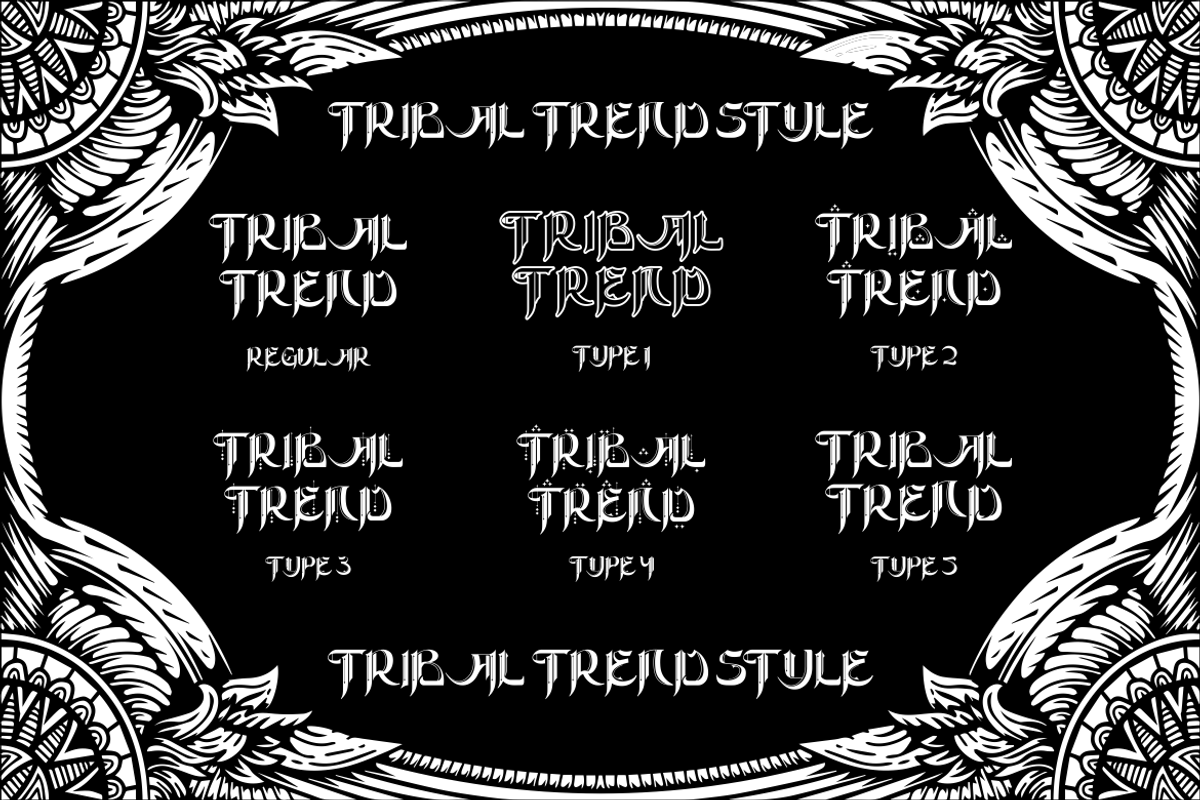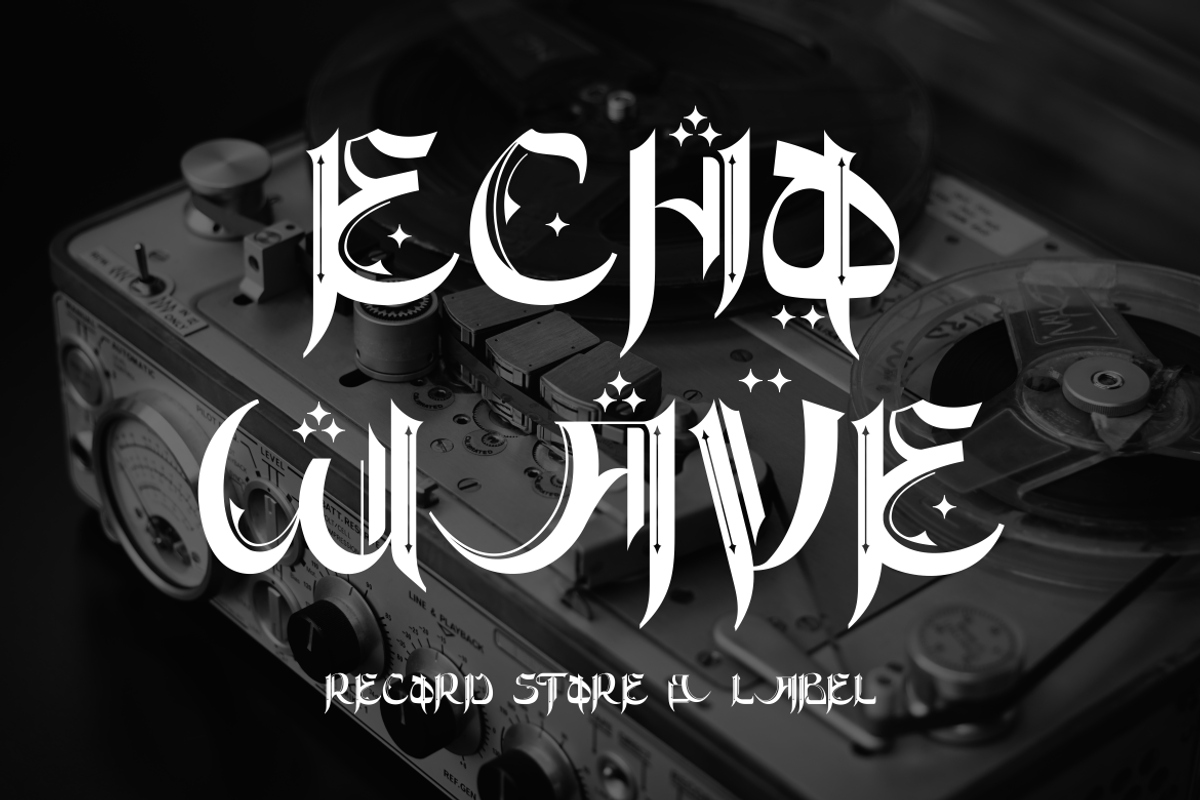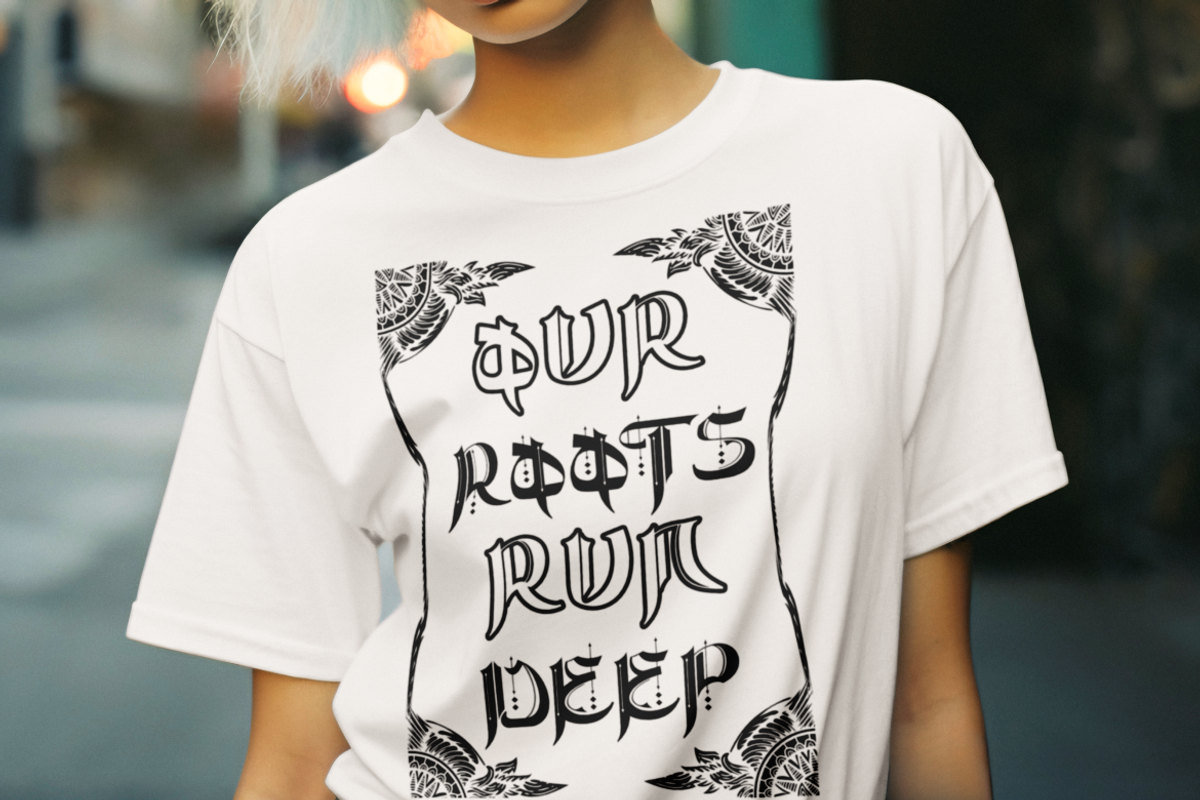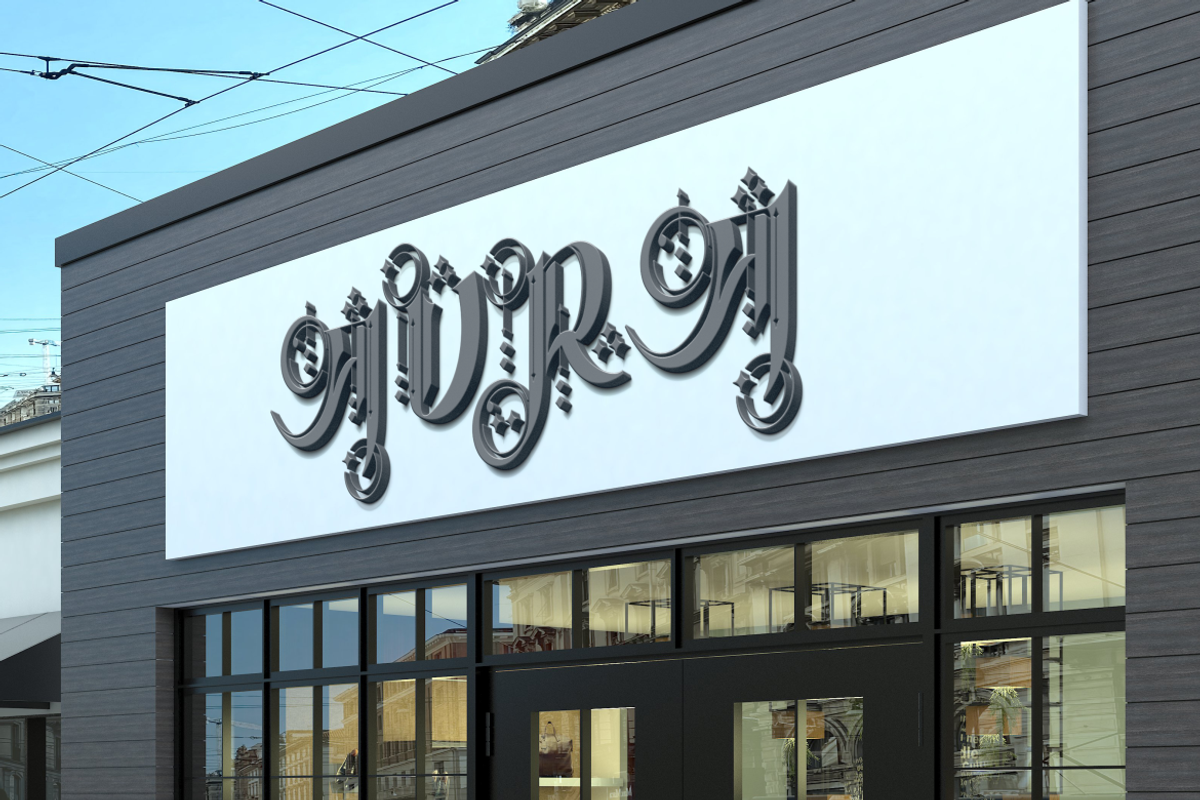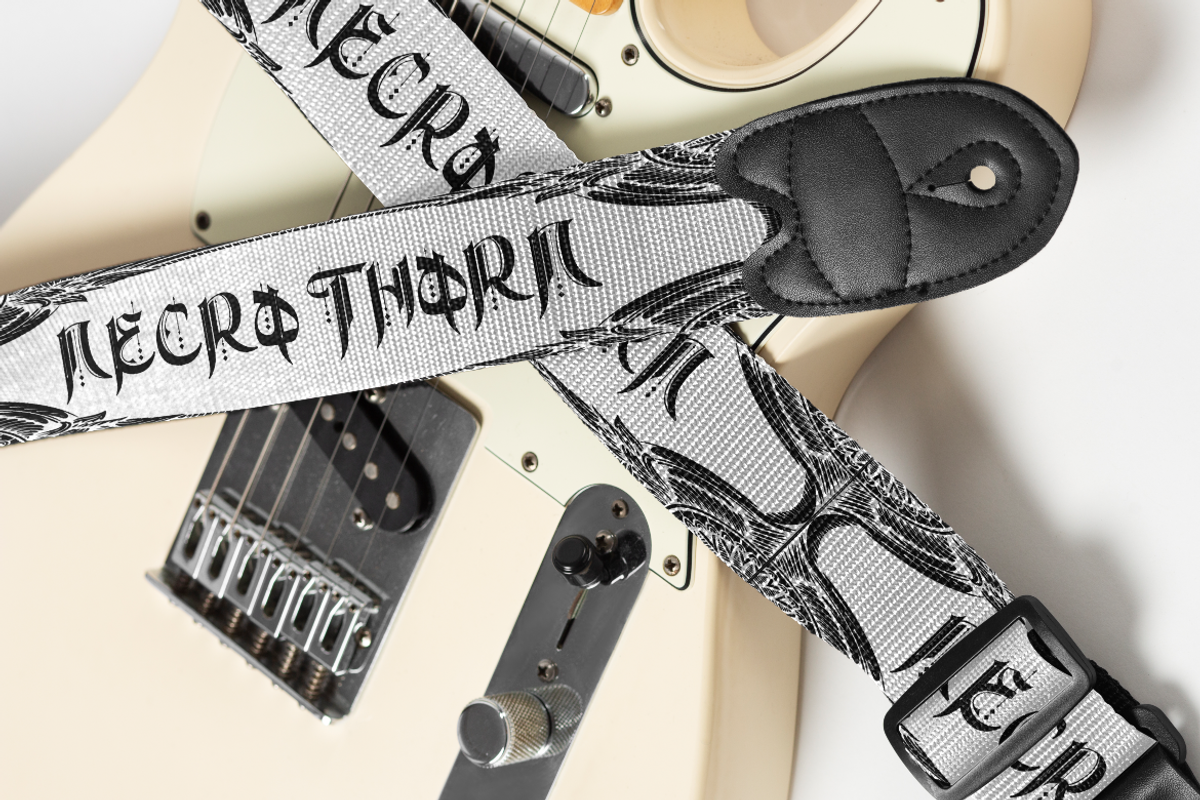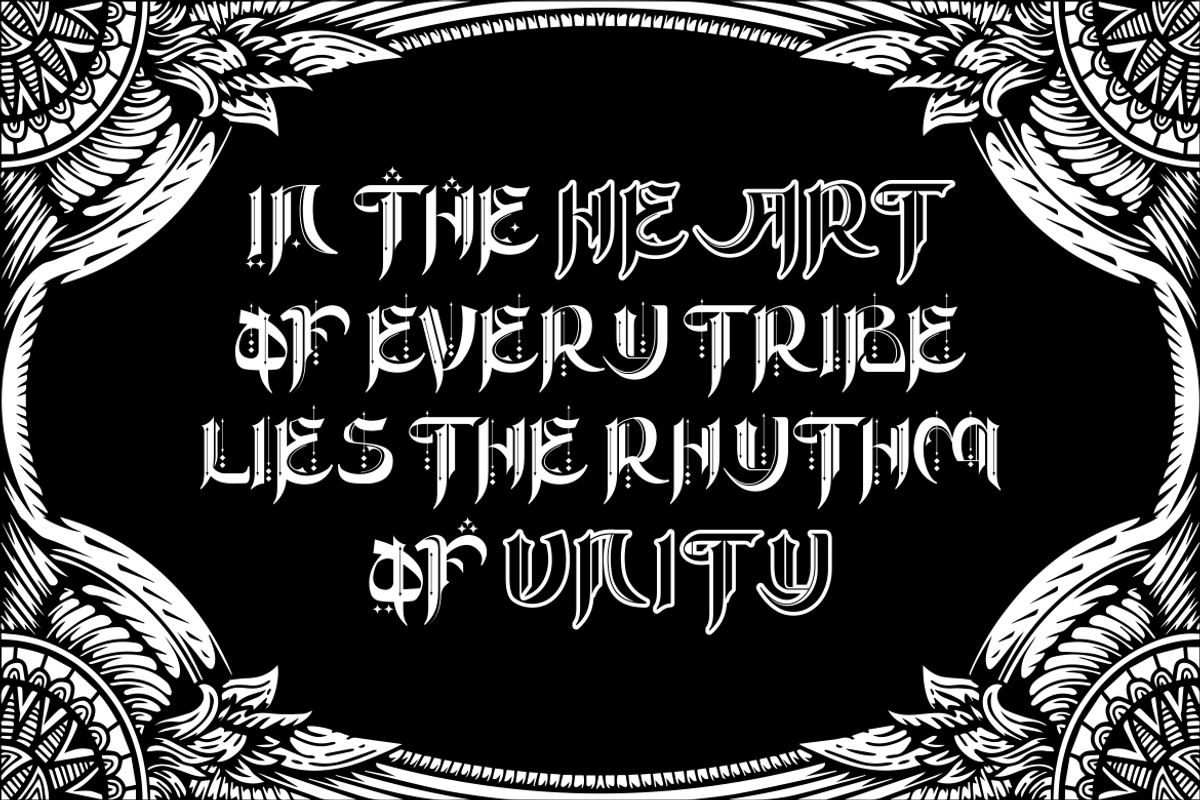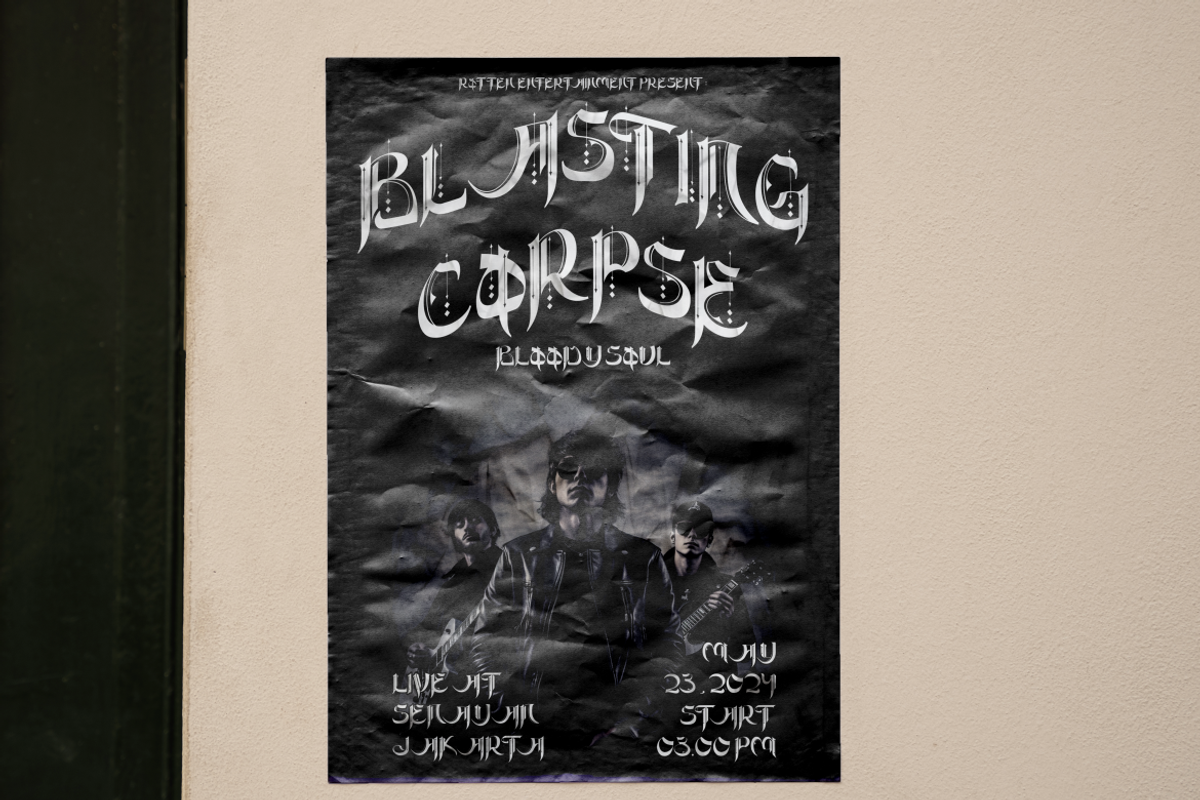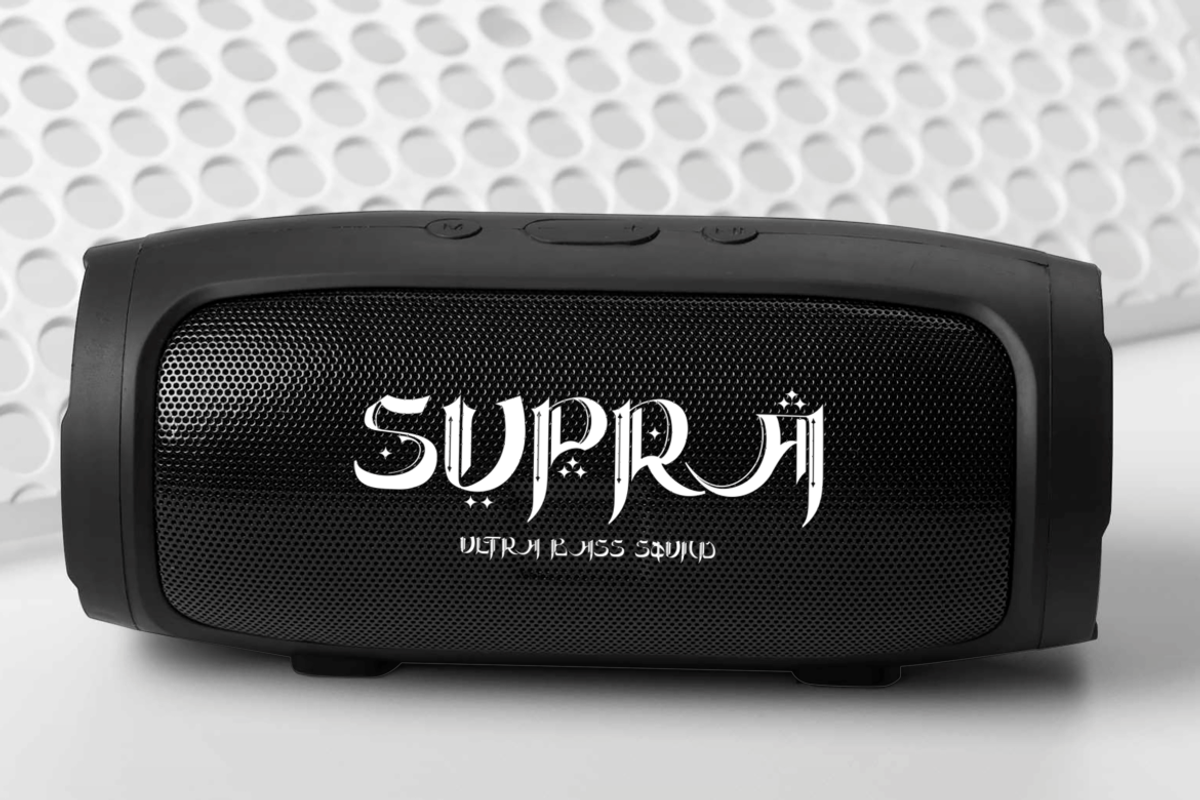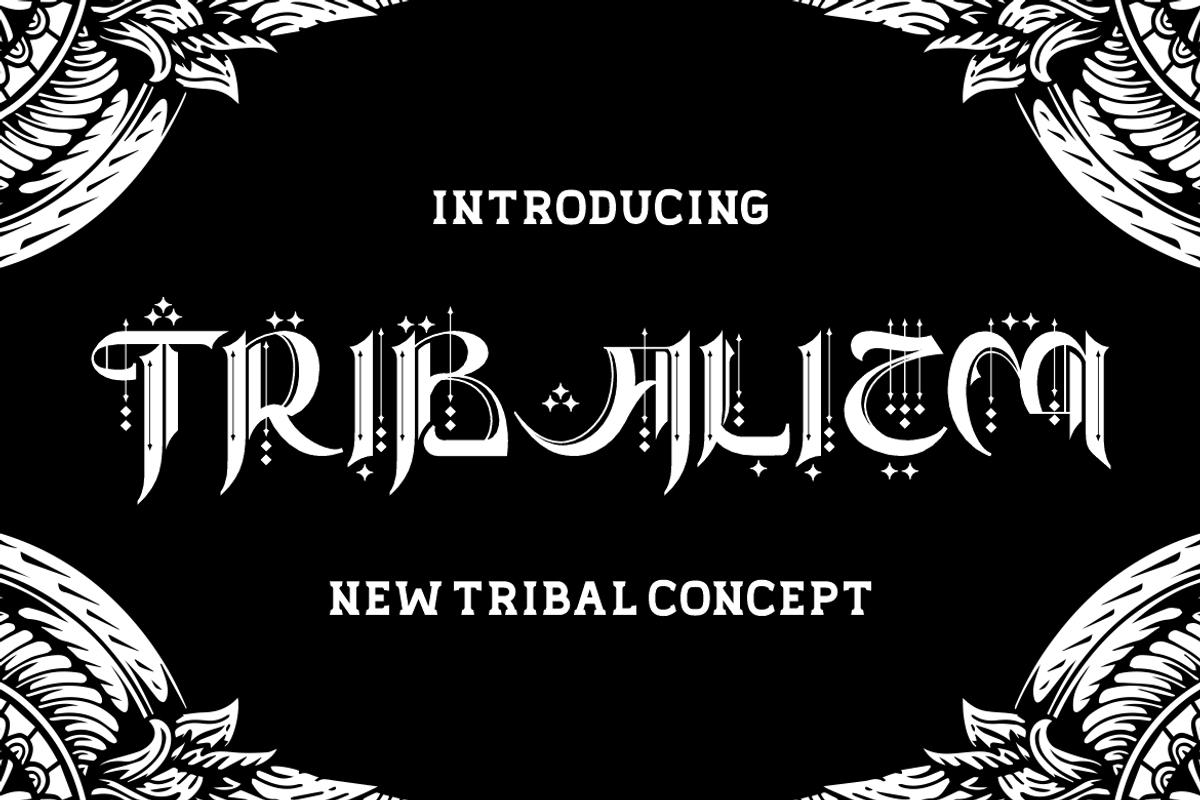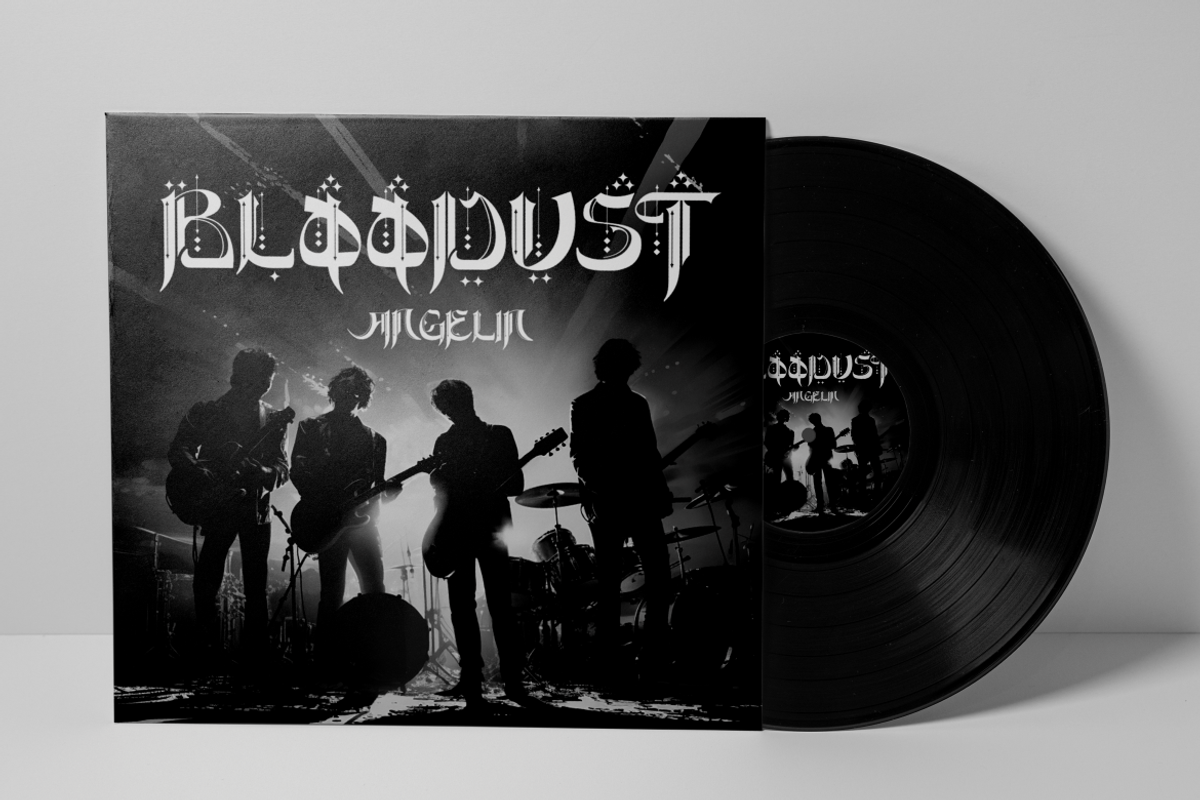
Tribalizm - New Tribal Concept Font
Ancient tribes and their vibrant masks come alive in the Tribalizm font. Inspired by the intricate patterns found on tribal artifacts, this typeface bridges the gap between tradition and modernity. Tribal Elegance, Tribalizm is more than a font—it’s a visual journey. Each letter echoes the tribal masks that once adorned sacred ceremonies. The bold lines and geometric shapes evoke primal energy, inviting you to tell stories of forgotten civilizations. Imagine this font gracing a logo for an adventure brand or etching its way onto a mystical book cover. From branding to crafting, Tribalizm thrives. Use it for your logo—let it symbolize courage and heritage. Craft invitations that whisper ancient secrets, or design packaging that hints at hidden treasures. Posters, business titles, and greeting cards gain an enigmatic allure with Tribalizm. And don’t forget children’s books—the juxtaposition of innocence and tribal mysticism sparks curiosity.